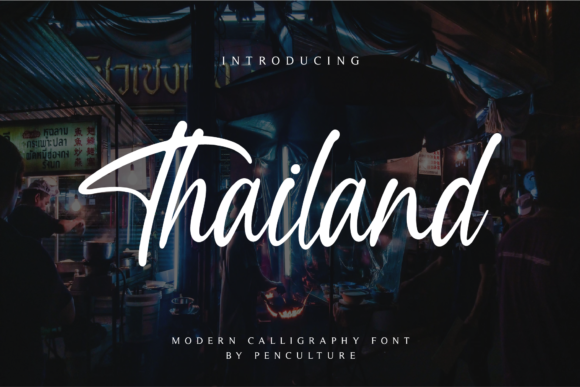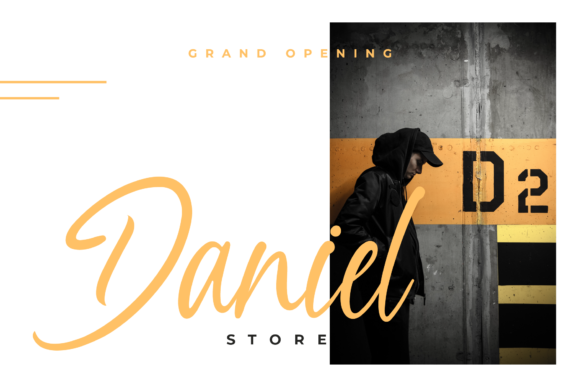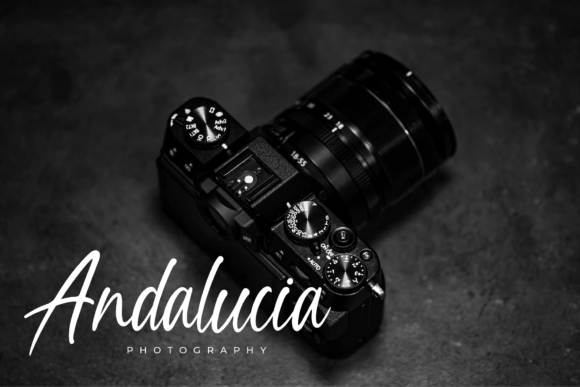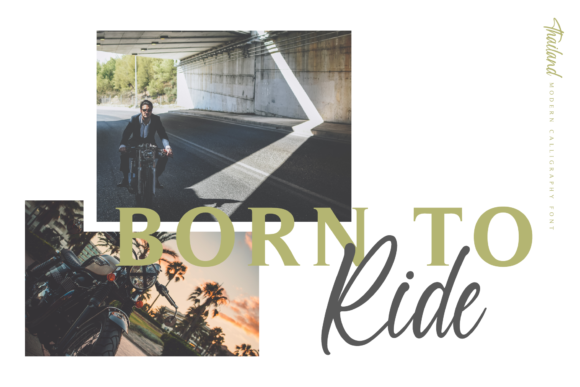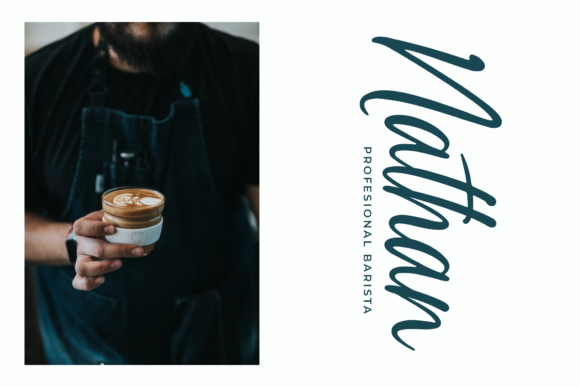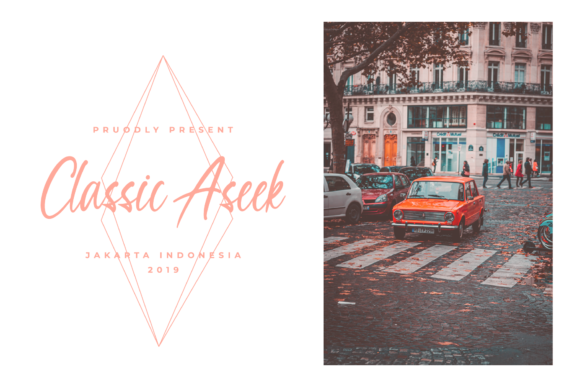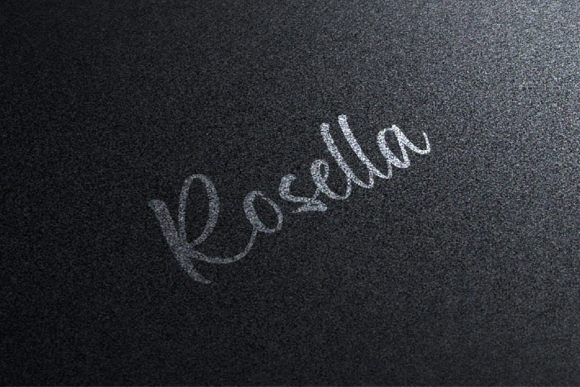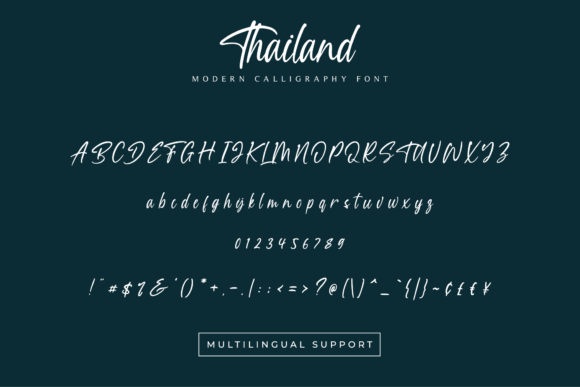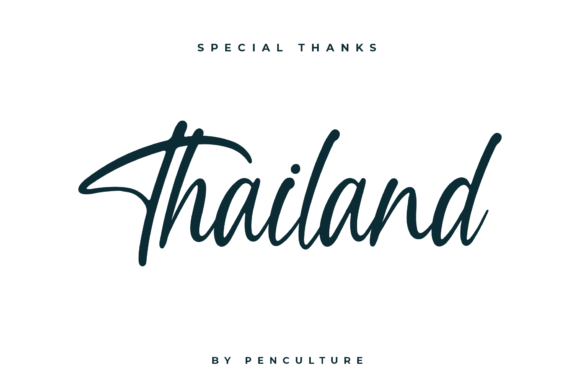
Thailand Font
About Thailand Font
Thailand feels fresh and modern, which makes it a great script for delivering any message with confidence and style.